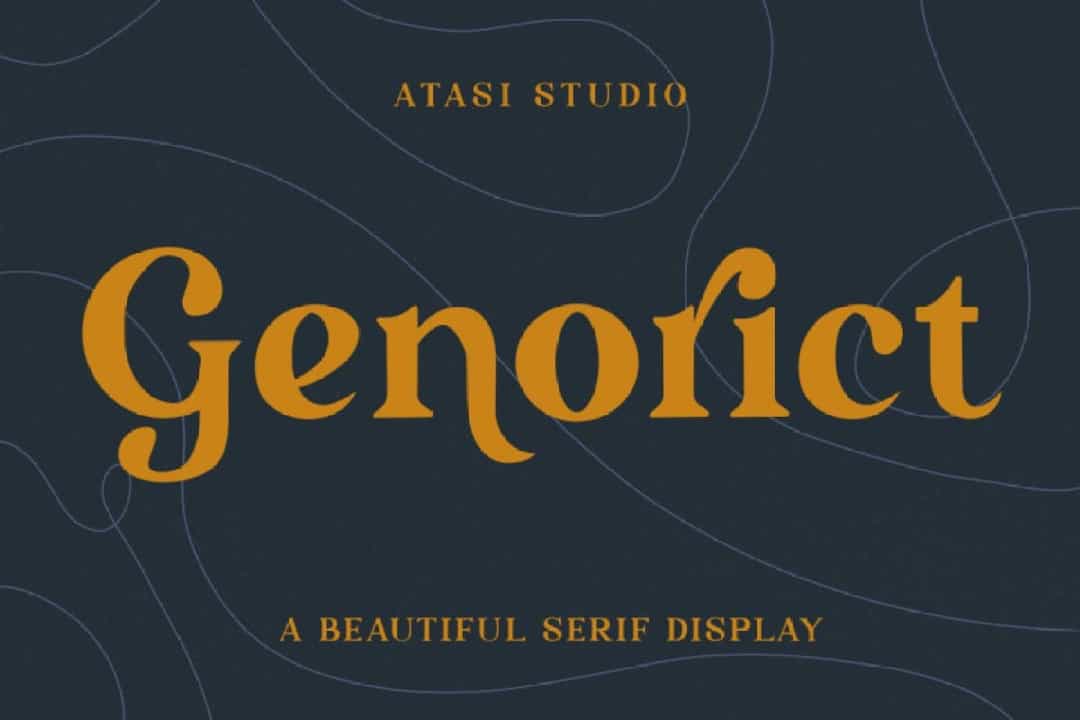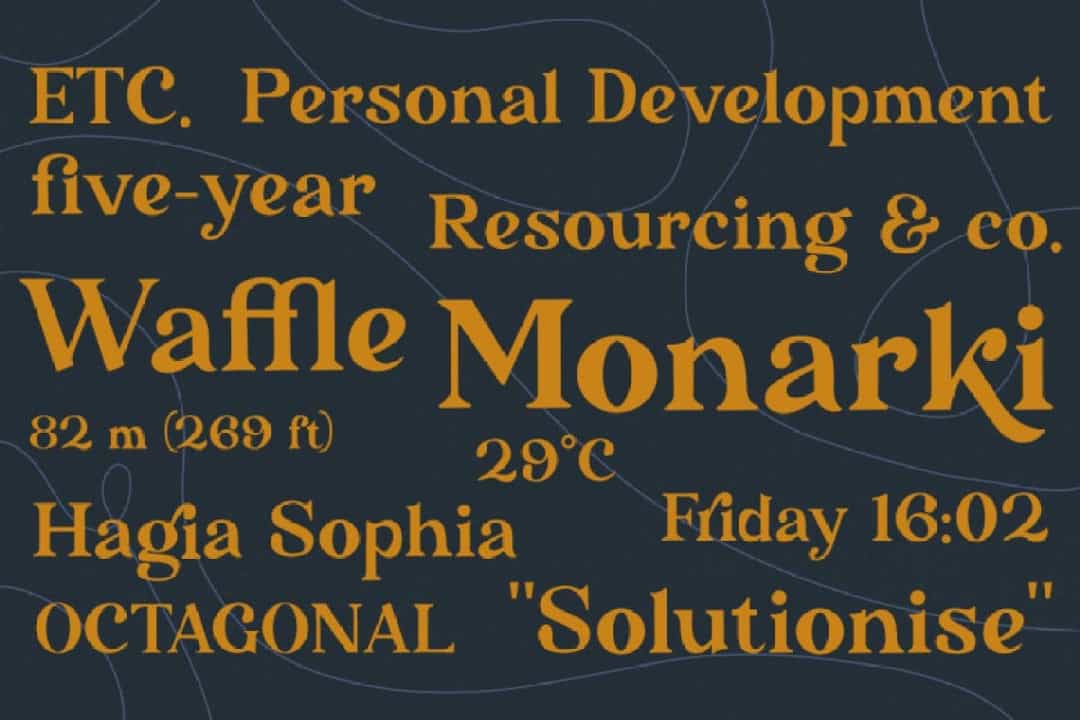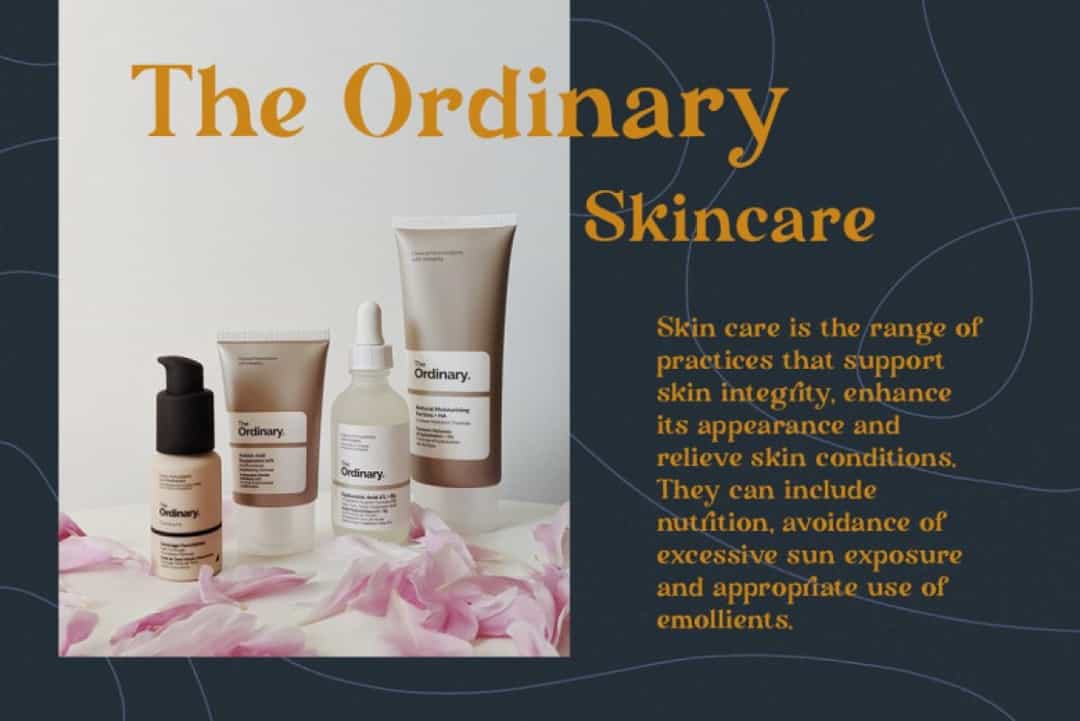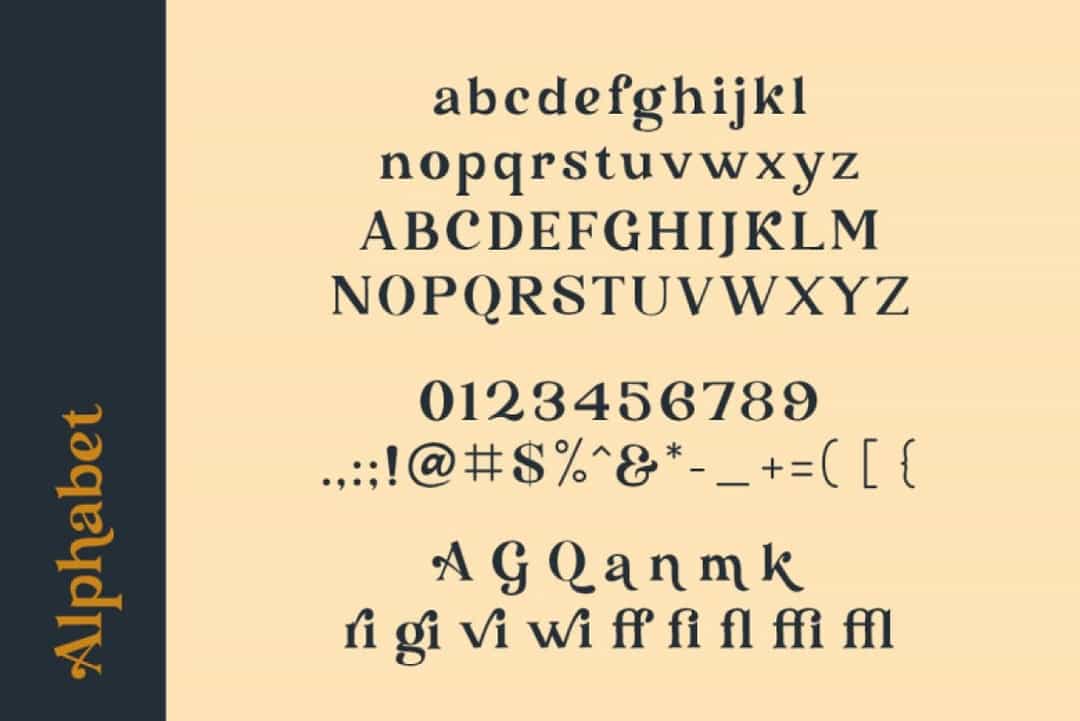
It is a serif font with both the characteristics of traditional and modern styles and has distinguished upper case and lower case. It incorporates a number of standard ligatures so that your logo or presentation can be as appealing as possible and stand out! This font was designed and has been released with Atasi Studio. It is a beautiful serif font suitable for headlines, logos, clothes, labels, invitations, thumbnails, and videos.